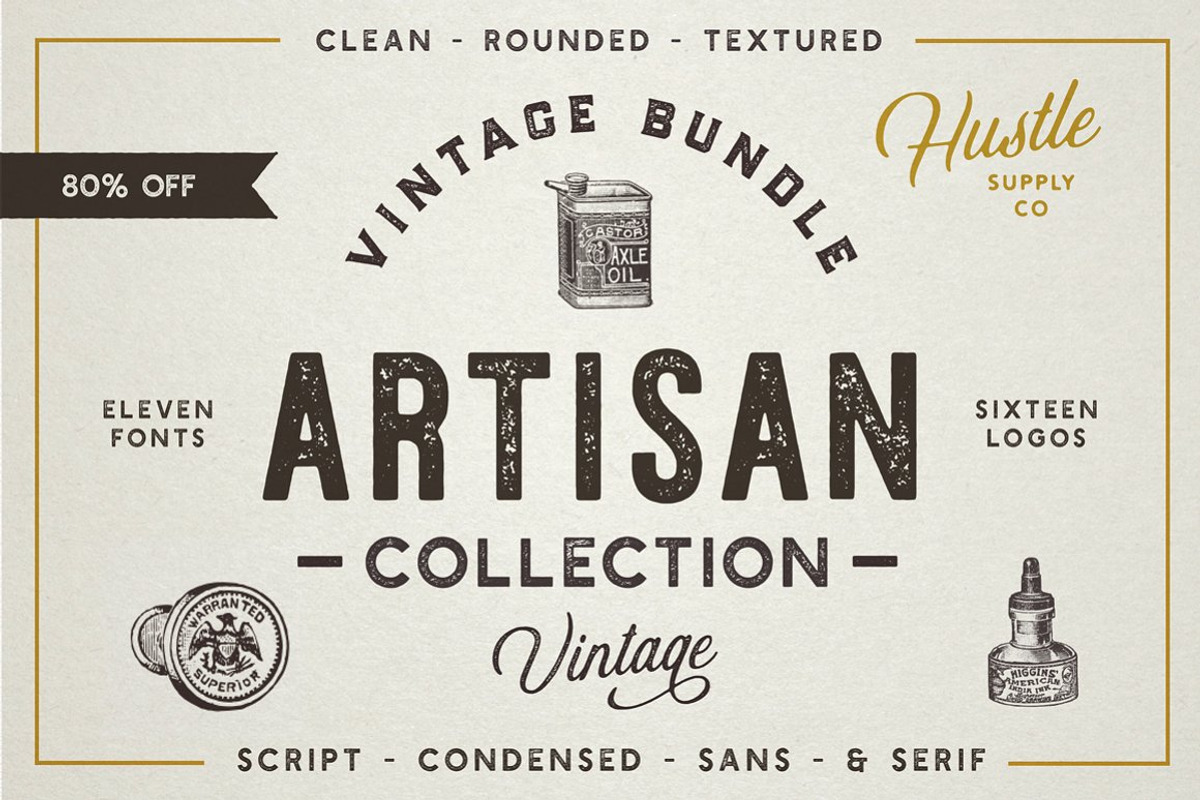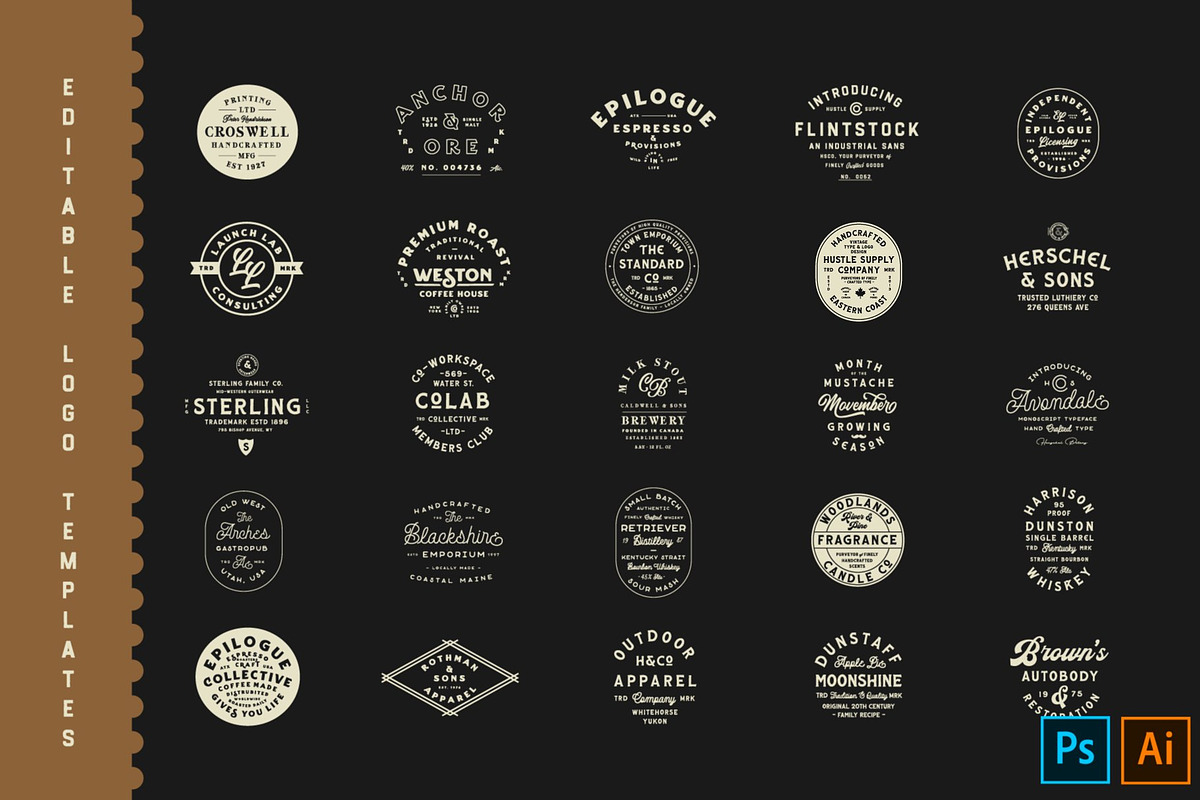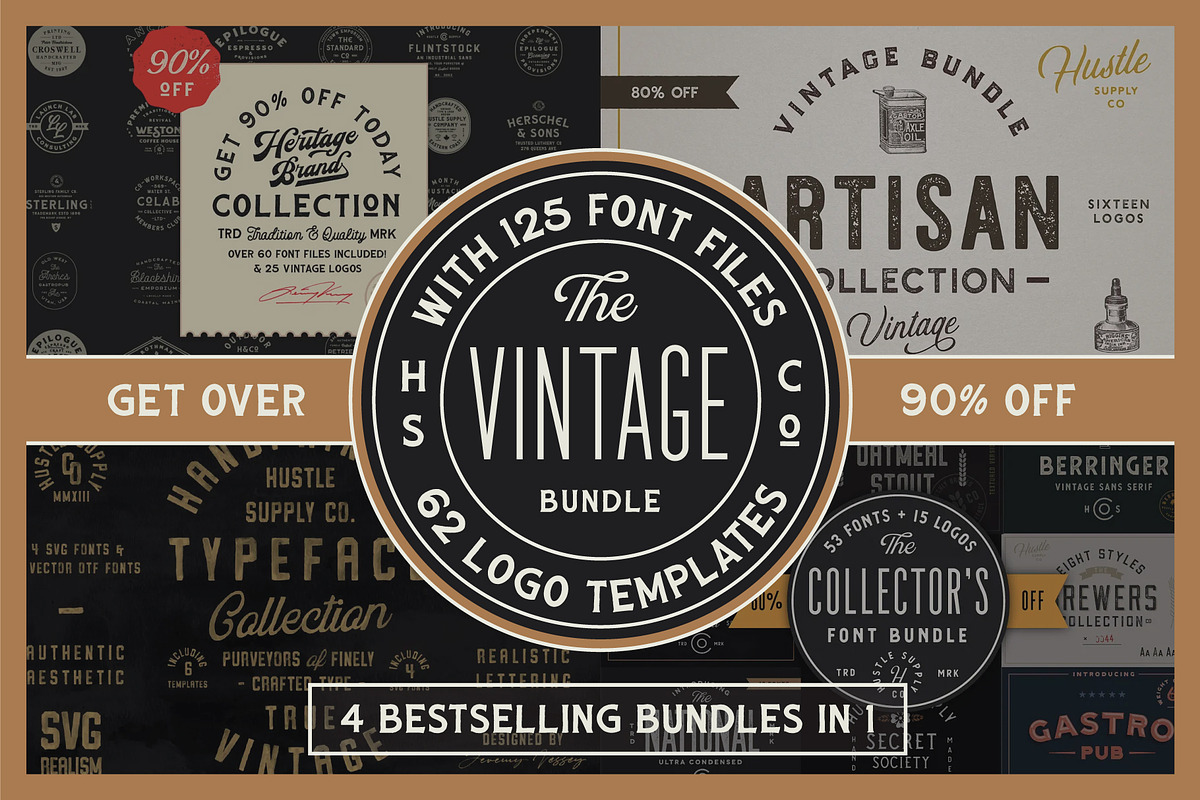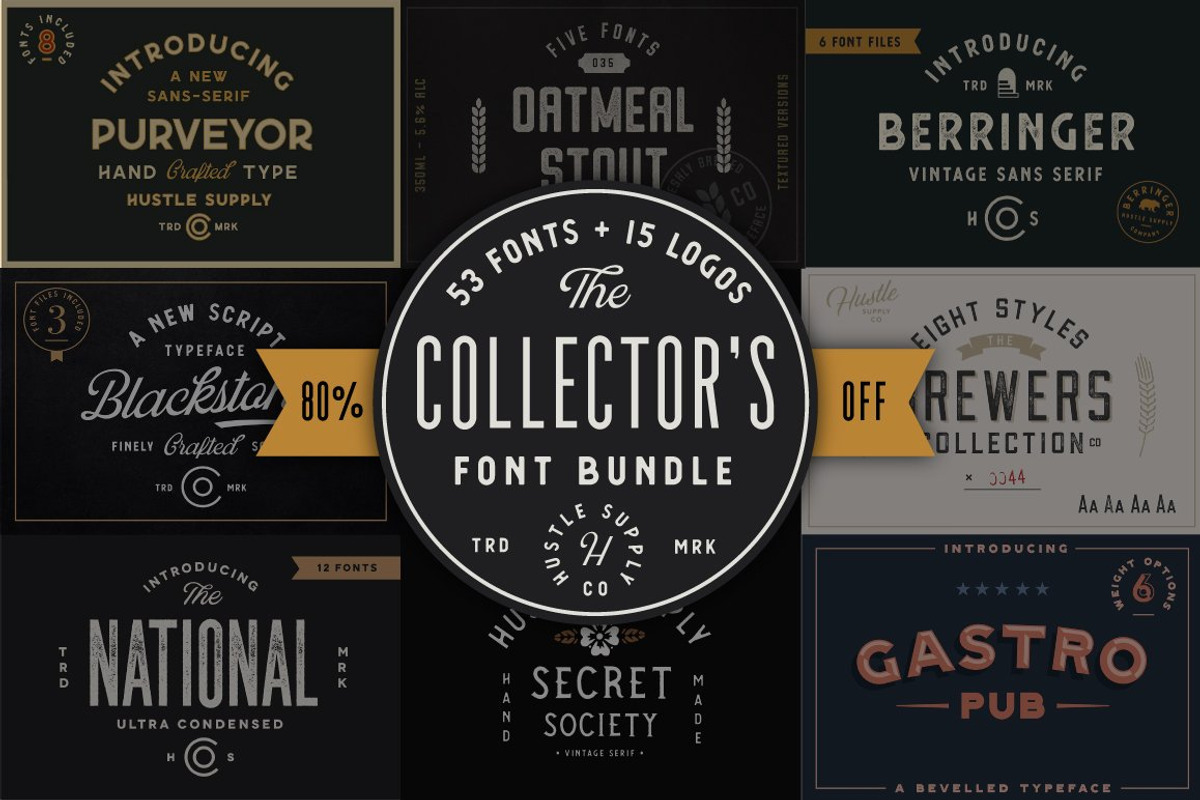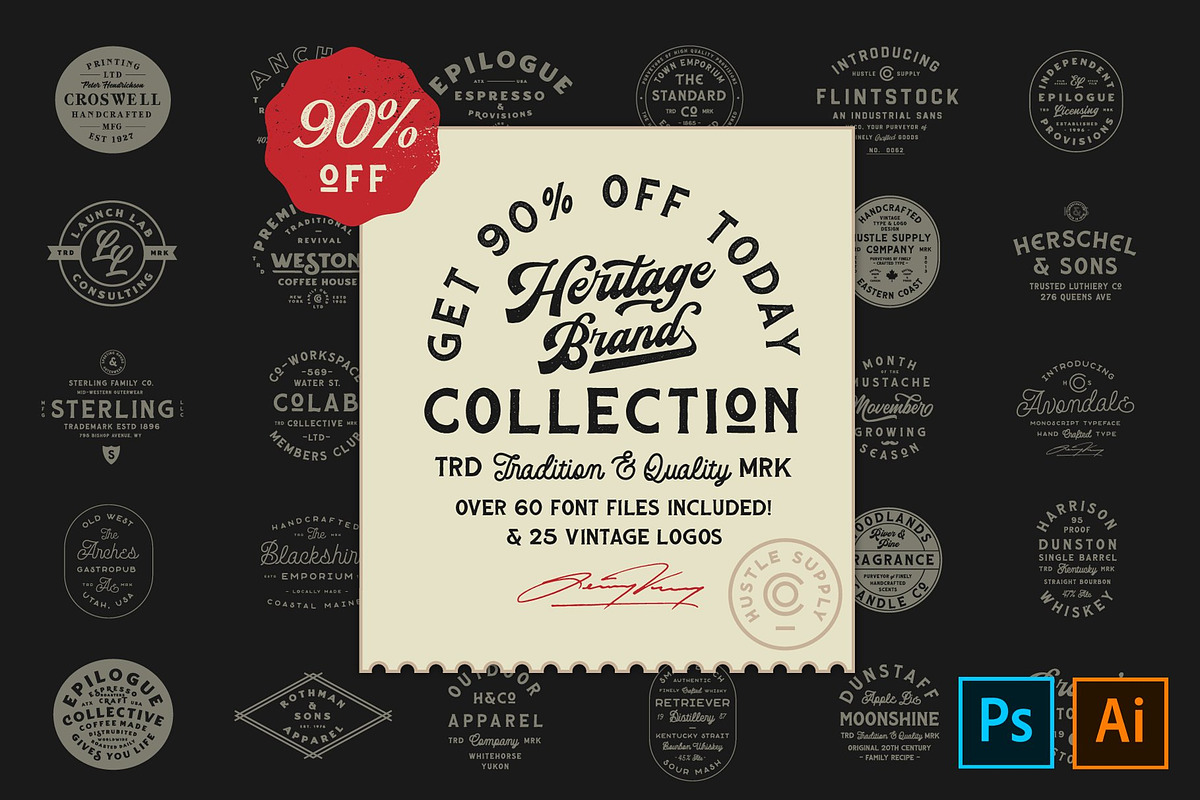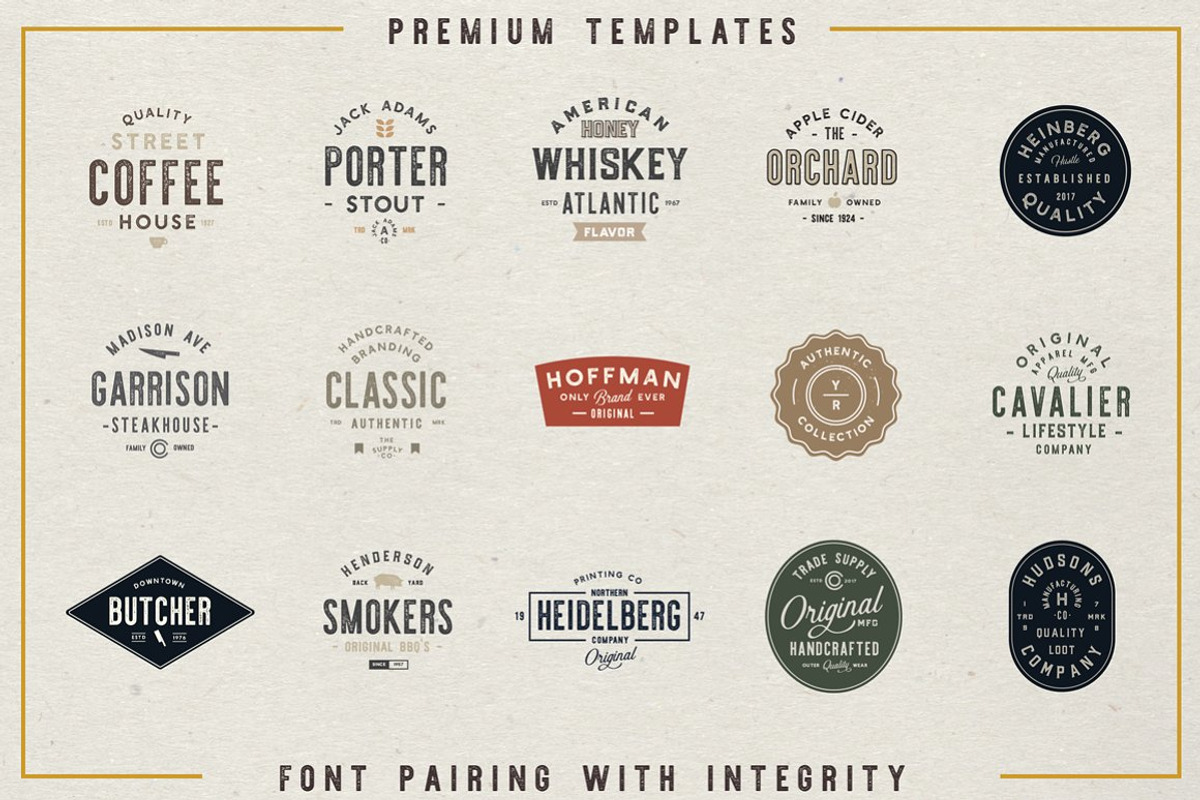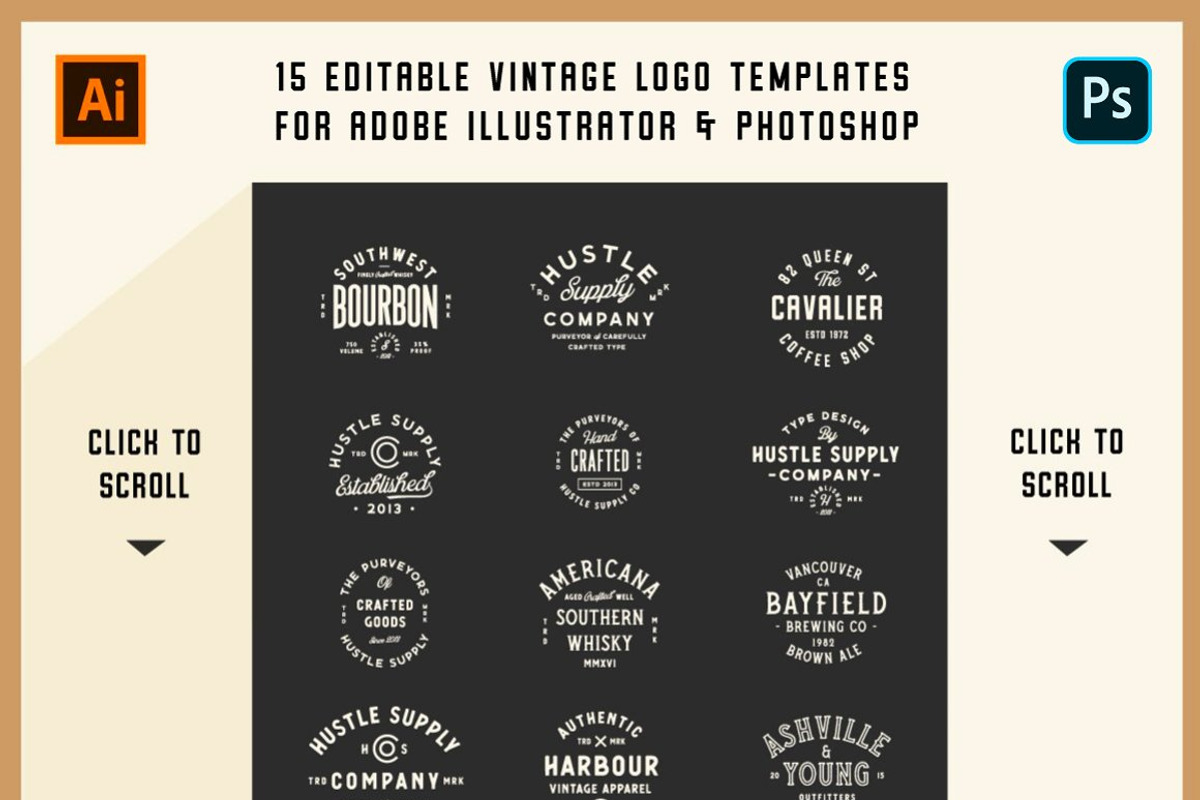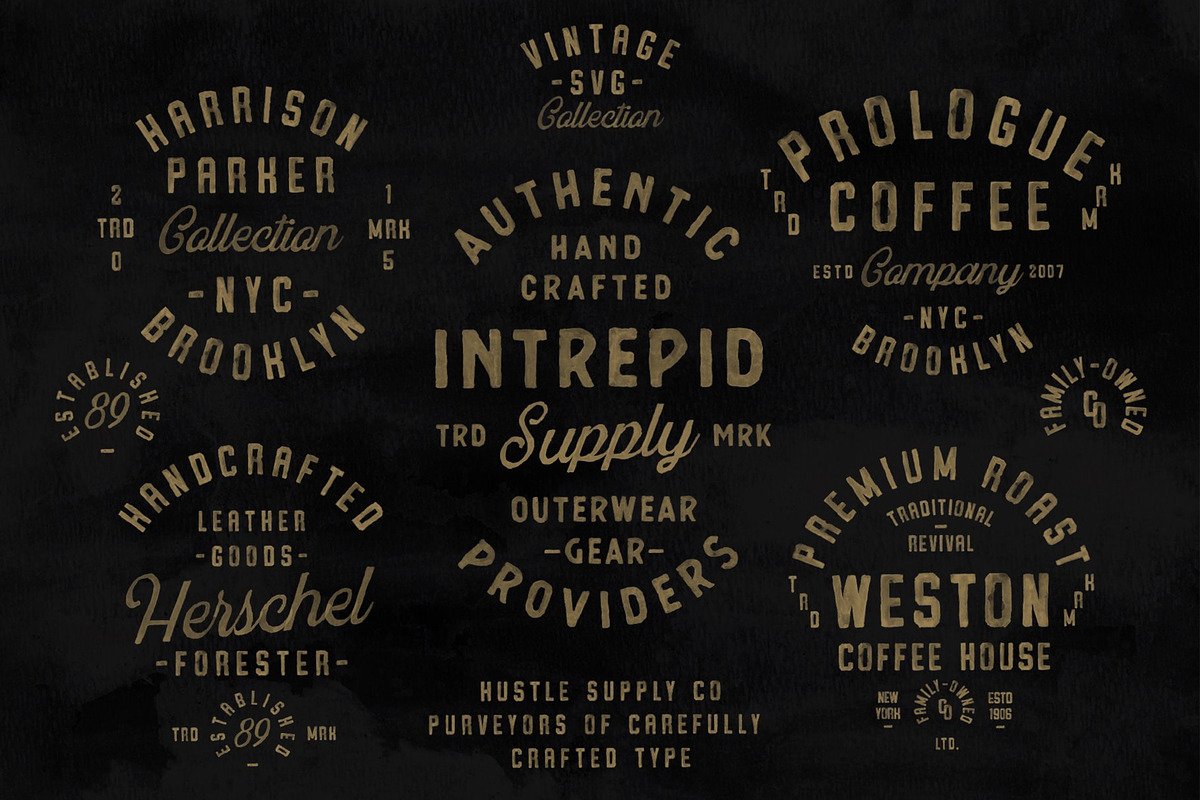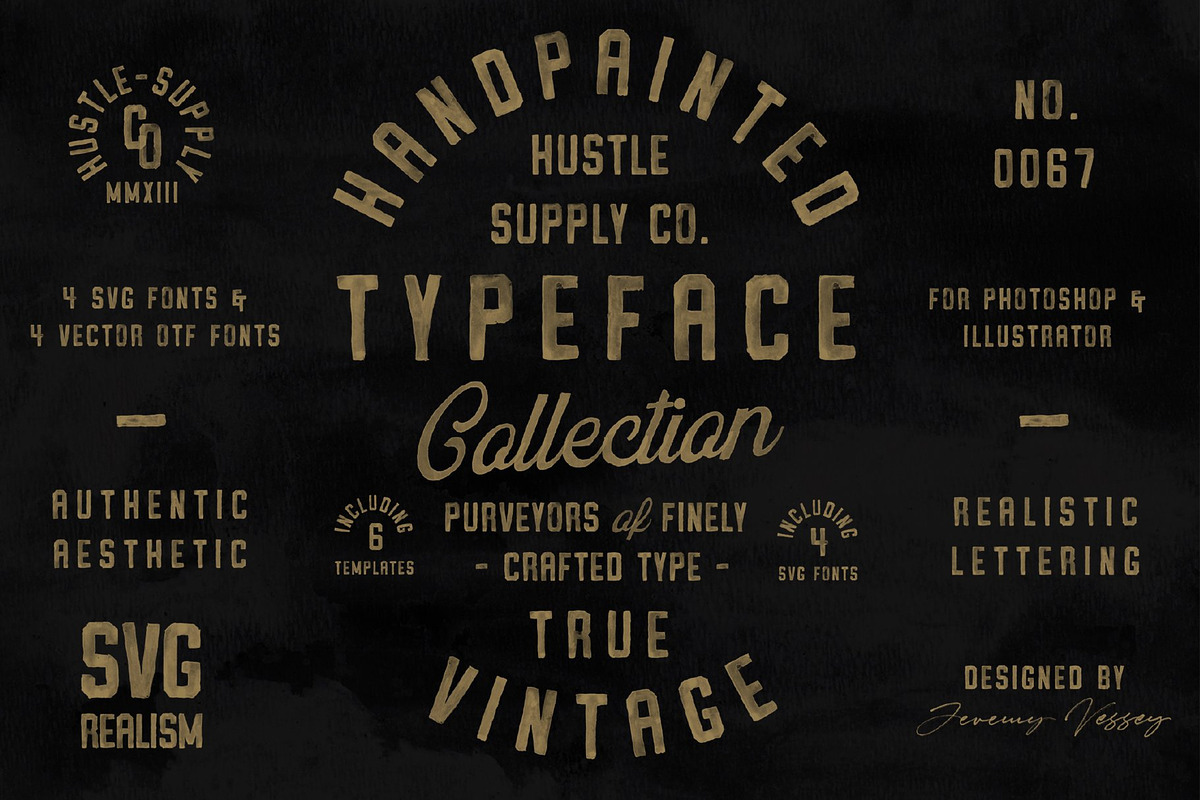
With 125 font files, 62 Logo Templates, this mega-bundle gives you access to tons of individual products - Many of which have been some of the most popular products ever sold on Creative Market. Get access to all of them for one incredible price! Get over 90% off and walk away with a massive selection of vintage inspired type!
- The Heritage Brand Collection (60 Font Files, 25 Vintage Logos for Adobe Illustrator & Photoshop)
- The Artisan Collection (12 Font Files, 16 Vintage Logos for Adobe Illustrator)
- The Handpainted Typeface Collection (4 SVG Fonts, 4 Regular Fonts, 6 Logo Templates)
- The Collector's Font Bundle (53 Font Files, 15 Logo Templates)